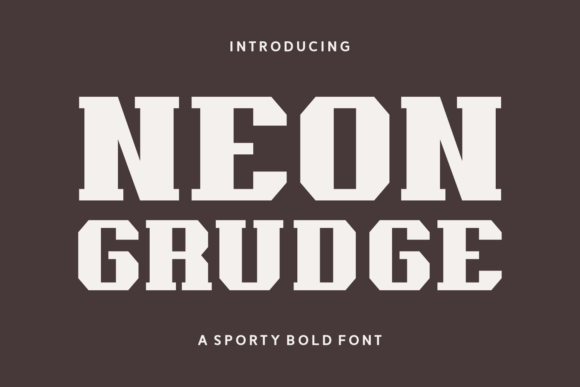
Neon Grudge: The Ultimate Sporty Font for Dynamic Branding
Neon Grudge is more than just a font—it's a powerful tool for creating bold, eye-catching designs that resonate with the energy of sports and athleticism. With its grunge-jersey aesthetic, this font brings a rugged, vintage feel to any project, making it ideal for team logos, sports branding, and athletic apparel. Whether you're designing a football jersey or a workout gear label, Neon Grudge offers a unique blend of style and functionality that stands out in any context.
Why Neon Grudge Matters for Strategic Design
In today's competitive market, visual identity plays a crucial role in how brands are perceived. Neon Grudge provides a distinctive look that can help your designs stand out from the crowd. Its bold, distressed appearance conveys a sense of strength and resilience—qualities that align perfectly with sports and fitness branding. By strategically using Neon Grudge, you can communicate a strong brand message that resonates with your target audience.
When planning your design projects, consider how Neon Grudge can enhance your visual storytelling. This font is particularly effective when used in conjunction with other design elements such as colors, graphics, and layouts. It adds depth and character, making your work more engaging and memorable.
Practical Use Cases for Neon Grudge
Neon Grudge is versatile enough to be used across a variety of applications. From sports team logos to custom lettering for merchandise, this font can elevate your creative output. For example, if you're designing a jersey for a local basketball team, Neon Grudge can give the design a professional and authentic look that reflects the team's spirit.
Additionally, Neon Grudge works well in promotional materials such as posters, banners, and social media graphics. Its retro vibe makes it a great choice for seasonal campaigns, whether it's for Halloween, Christmas, or a summer sports event. The font's compatibility with Cricut printing also makes it a valuable asset for DIY projects and personalized items.
Strategic Considerations When Using Neon Grudge
Before incorporating Neon Grudge into your designs, it's important to consider the context and purpose of your project. While the font is visually striking, it may not be suitable for all types of content. For instance, if you're creating a formal document or a minimalist design, Neon Grudge might overwhelm the overall aesthetic.
It's also essential to think about readability. Although Neon Grudge has a bold and dynamic appearance, it's important to ensure that the text remains legible, especially in smaller sizes. Test the font in different formats and sizes to see how it performs in various applications.
Planning Tips for Effective Neon Grudge Usage
To get the most out of Neon Grudge, start by defining your goals and target audience. Ask yourself what message you want to convey and how the font can support that message. If your goal is to create a strong, sporty identity, Neon Grudge can be an excellent choice. However, if you're aiming for a more subtle or modern look, you may need to explore other options.
Another tip is to experiment with different color combinations. Neon Grudge works well with a range of colors, but certain palettes may enhance its impact more than others. For example, using a dark background with a bright, neon-colored text can create a striking contrast that draws attention.
Long-Term Value of Neon Grudge in Branding
Investing in a font like Neon Grudge can have long-term benefits for your brand. Its versatility and unique style make it a valuable asset for ongoing design projects. As your brand evolves, you can continue to use Neon Grudge to maintain a consistent visual identity that reflects your values and mission.
Moreover, Neon Grudge's compatibility with various design software and printing methods ensures that it remains a practical choice for both digital and physical applications. This adaptability can save time and resources in the long run, allowing you to focus on other aspects of your business or creative work.
Risks of Using Neon Grudge Without Clear Goals
While Neon Grudge is a powerful tool, using it without a clear purpose can lead to ineffective design choices. Randomly applying the font without considering its impact on the overall message can dilute your brand's identity and confuse your audience. It's important to approach the use of Neon Grudge with intention and strategy.
One common risk is overuse. If you apply Neon Grudge too frequently across different platforms or materials, it may lose its effectiveness and become less impactful. To avoid this, use the font selectively and thoughtfully, ensuring that it aligns with your brand's voice and goals.
Conclusion: Embrace Neon Grudge for Impactful Design
Neon Grudge is a font that combines style, strength, and versatility, making it an excellent choice for sports and athletic branding. By understanding its strategic value and using it intentionally, you can create designs that resonate with your audience and reflect your brand's identity. Whether you're working on a sports logo, a promotional campaign, or a personal project, Neon Grudge offers a bold and dynamic way to express your vision.
As you explore the possibilities of Neon Grudge, remember to plan carefully, test thoroughly, and use it with purpose. With the right approach, this font can become a key element in your design arsenal, helping you achieve better results and stand out in a competitive market.